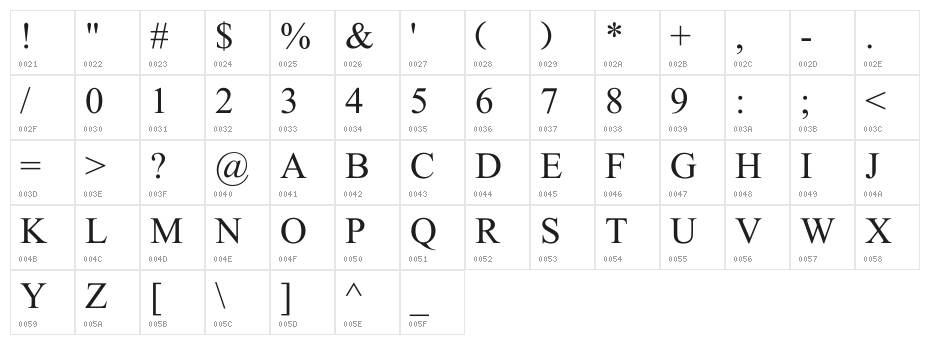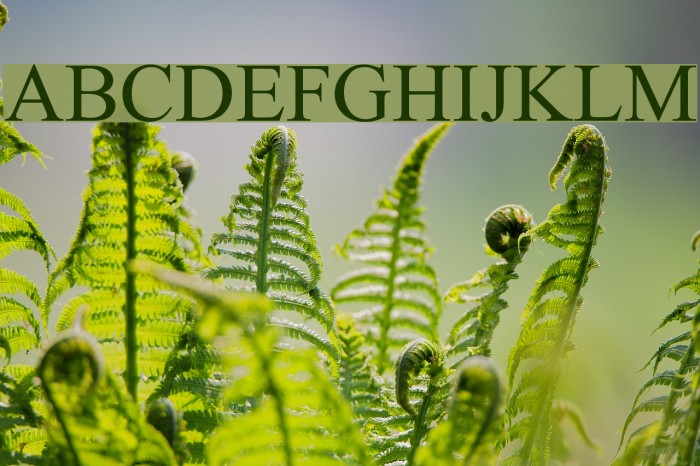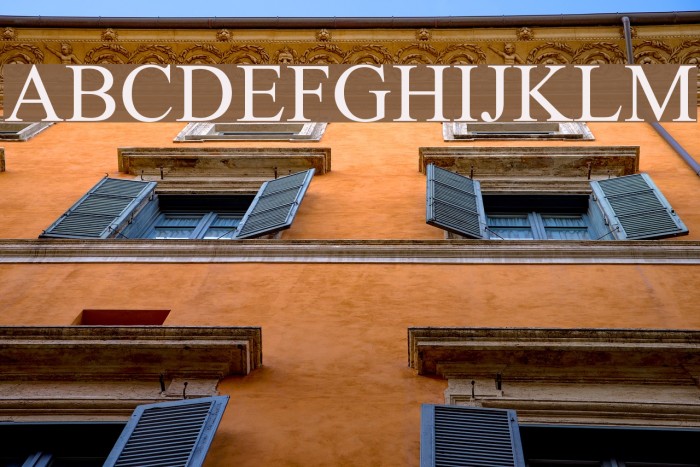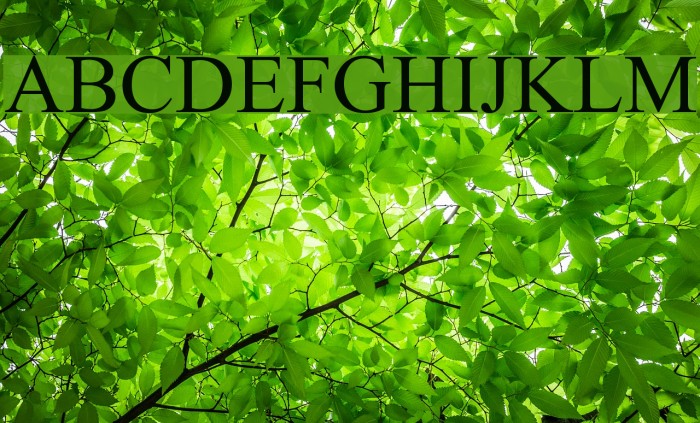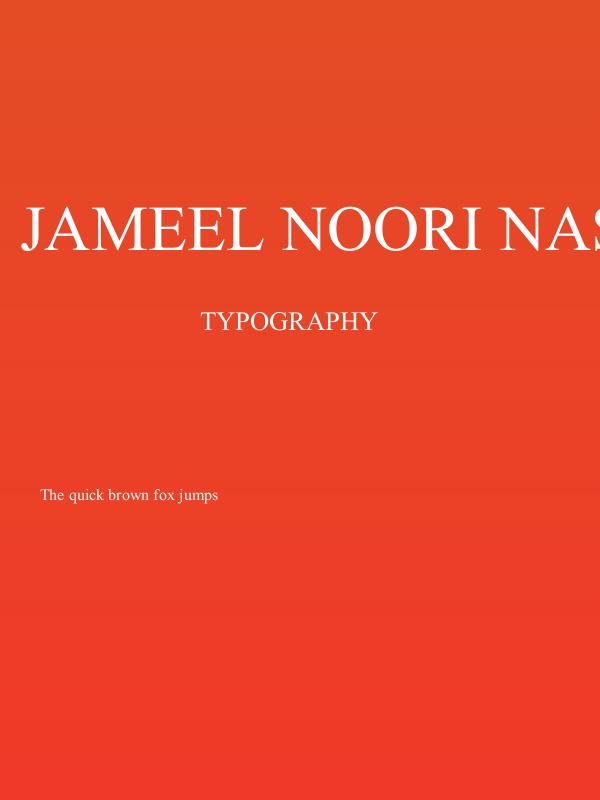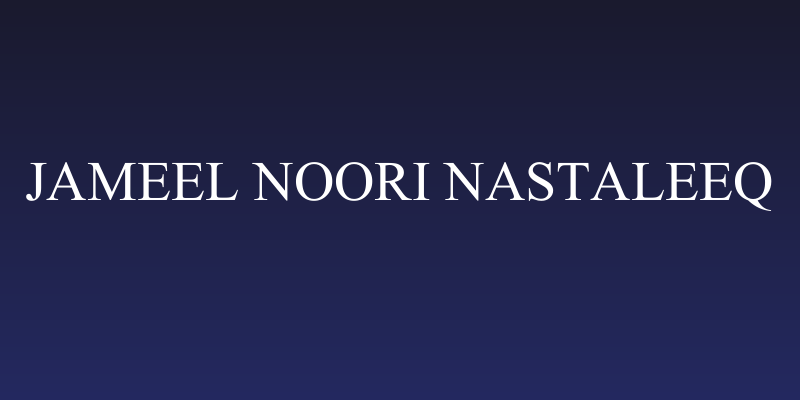
Jameel Noori Nastaleeq Font
Jameel Noori Nastaleeq Description
This font exhibits a classic serif style with elegant and refined strokes. The uppercase letters are bold and commanding, while the lowercase letters maintain a graceful and balanced appearance. The numerals are clear and distinct, ensuring readability. Special characters are designed with precision, adding to the font's versatility. The overall design is timeless, making it suitable for a variety of applications. The font's structure is well-defined, with consistent line weights and a harmonious flow between characters.
| Proposed Projects | Ideal for book covers, formal invitations, editorial layouts, and branding materials. |